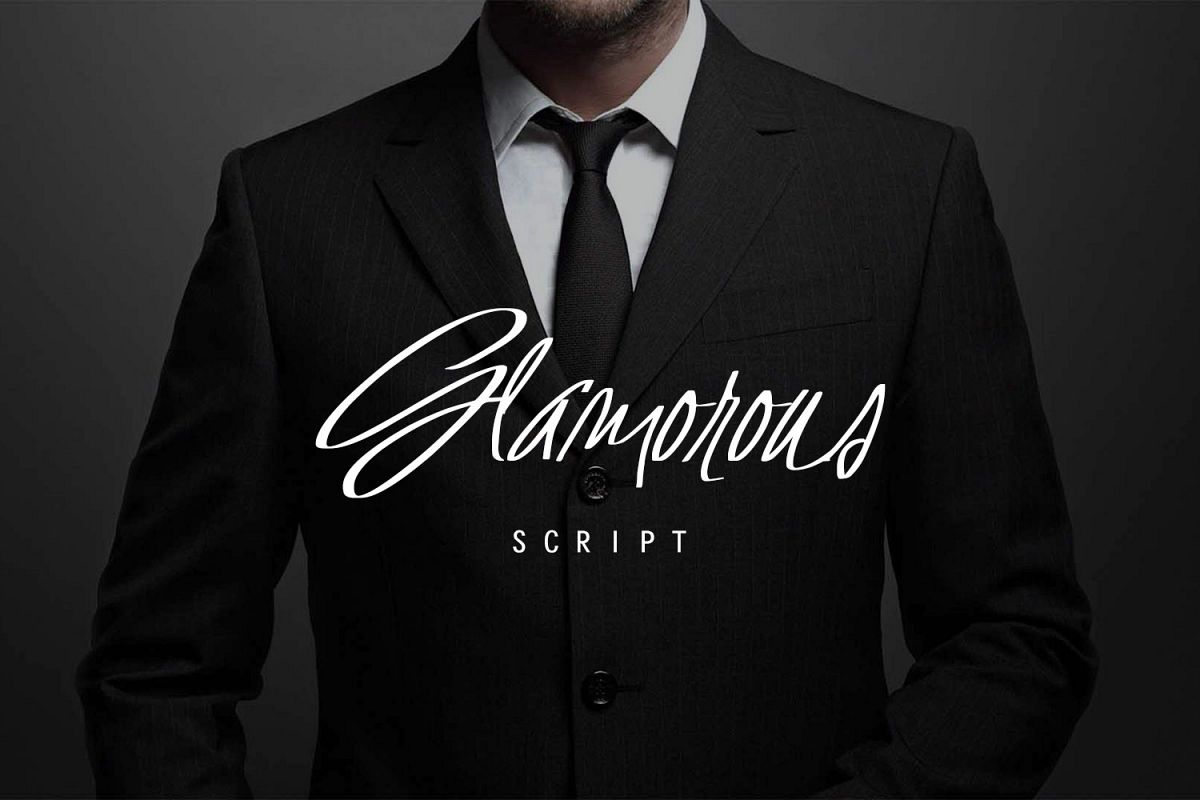
Glamorous Script
Glamorous Script - A hand made font, with uppercase letters. An elegant and easy-to-read font, even being a script. It can be used in all advertising materials, perfect for: branding, business card, packaging, flyer, logo, photos, books, packaging, posters, etc ...